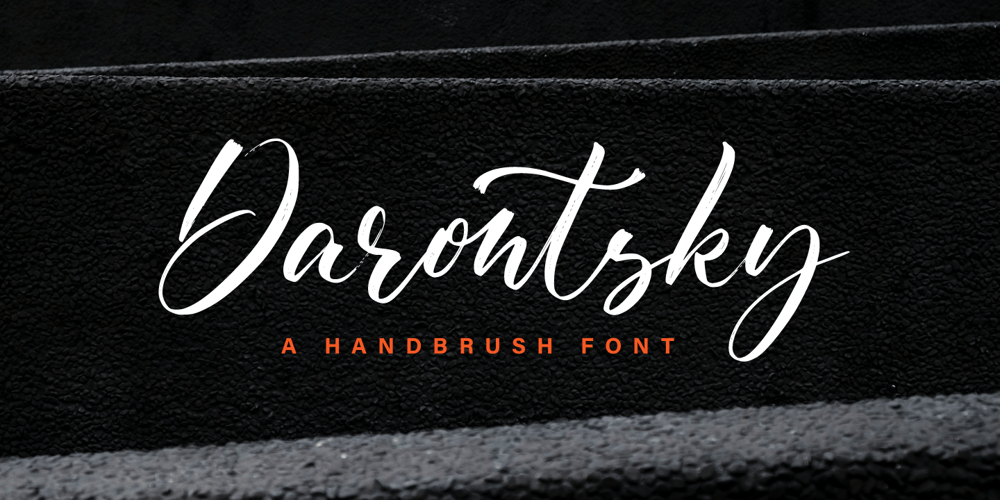
Darontsky Font Family was designed by Hayinah and published by Rockboys Studio. Darontsky contains 1 styles and family package options. Darontsky is a romantic and sweet calligraphy typeface with characters that dance along the baseline. It will add a luxury spark to any design project that you wish to create!